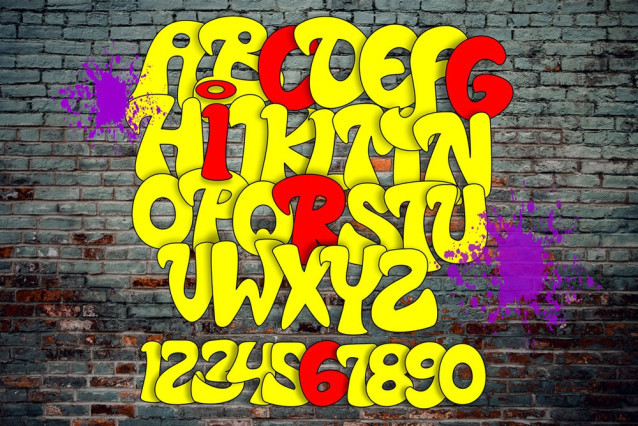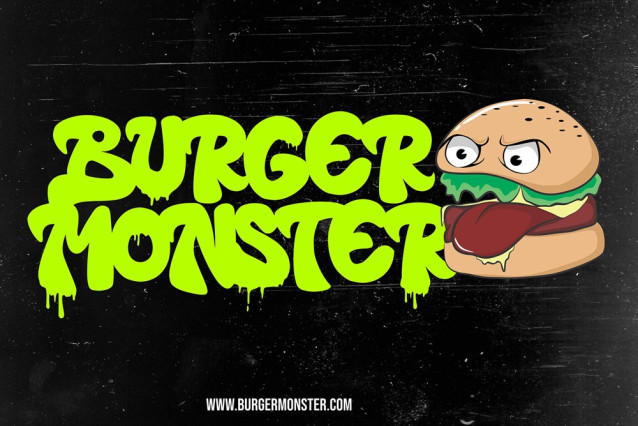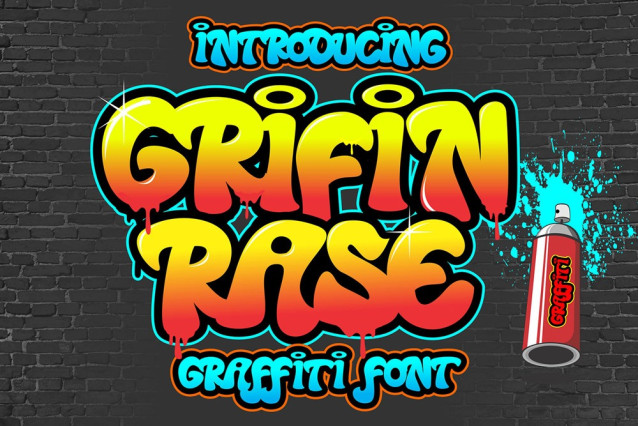
Grifin Rase Font
Grifin Rase Font is a modern wavy graffiti font inspired by flowing street lettering, urban graffiti murals, underground spray paint culture, and contemporary streetwear typography. Designed with dynamic curves and expressive wave-inspired letterforms, this urban display font delivers energetic visual movement for creative projects that demand bold street personality. Whether you are building streetwear branding, gaming graphics, music artwork, social media visuals, or poster designs, Grifin Rase helps your typography stand out with authentic urban energy.
This wavy graffiti font combines modern display typography with fluid street-inspired aesthetics, creating a unique visual identity perfect for creators who want bold and stylish urban lettering. The flowing graffiti structure gives every composition a sense of motion and rhythm, making the font ideal for attention-grabbing headlines, logos, apparel graphics, and digital campaigns.
Grifin Rase is carefully crafted to maintain readability while preserving the raw energy of authentic graffiti culture. The smooth wave-inspired details create a modern urban atmosphere that works beautifully across print and digital media. From esports branding and hip hop posters to fashion campaigns and YouTube thumbnails, this modern graffiti font adapts perfectly to different creative styles.